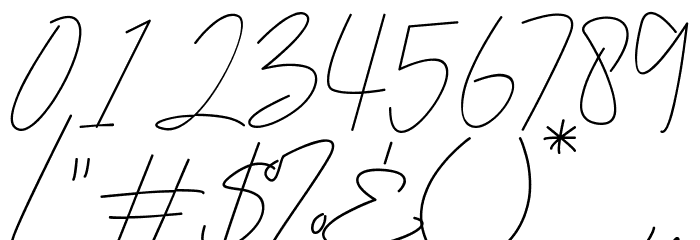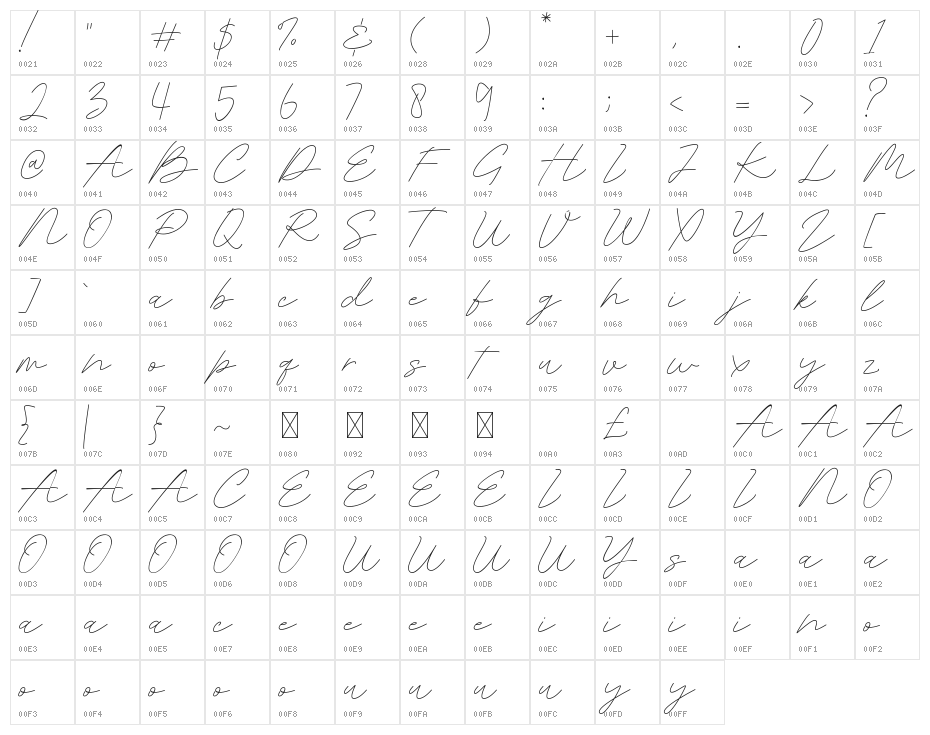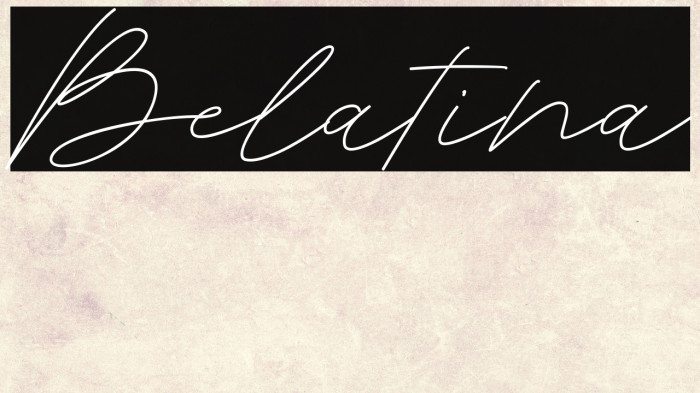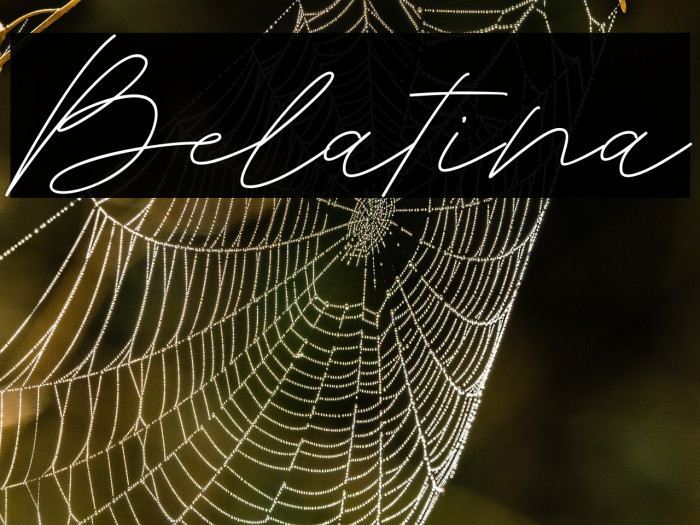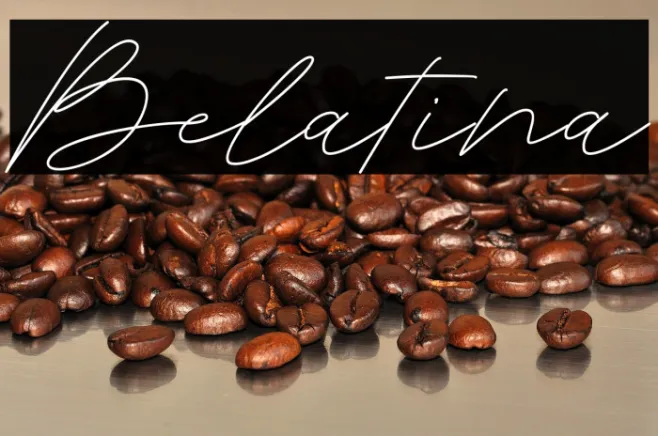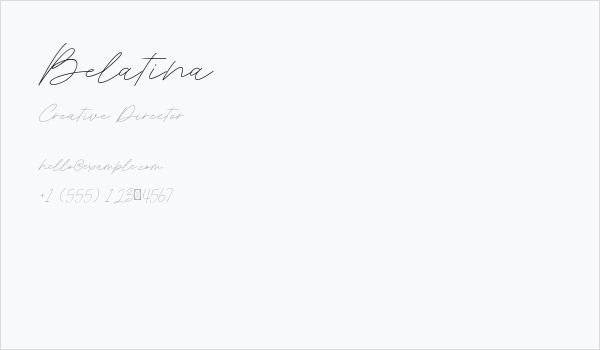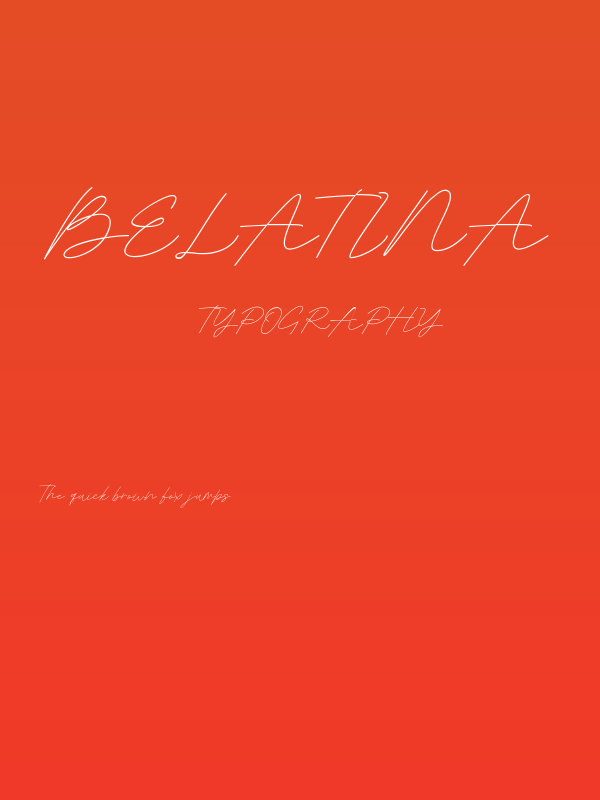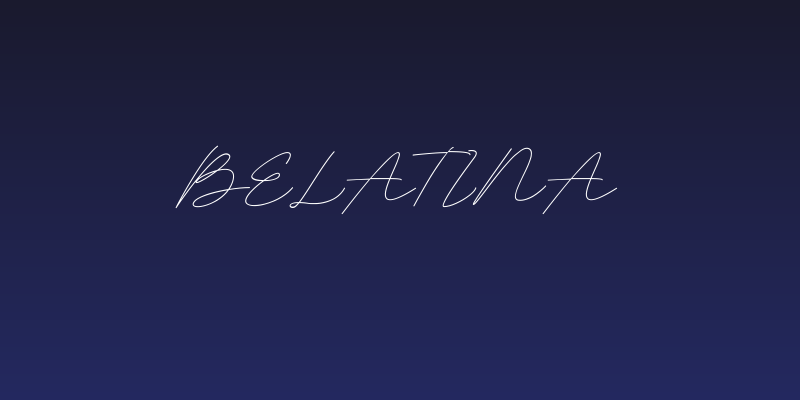
Belatina Font
Belatina Description
This font features a flowing, cursive style that mimics natural handwriting. The letters are connected, creating a seamless and elegant script. The strokes are thin and consistent, giving it a delicate appearance. The uppercase letters maintain a graceful loop, while the lowercase letters are slightly more compact, yet still maintain the fluidity of the script. The numerals and special characters are designed to match the overall cursive style, ensuring a cohesive look across all characters. This font exudes a sense of sophistication and personal touch, making it ideal for projects that require a handwritten aesthetic.
| Use Case | Invitations, Personal notes, Branding |
| Proposed Projects | Ideal for wedding invitations, personal letters, branding for luxury products, and artistic projects requiring a personal touch. |